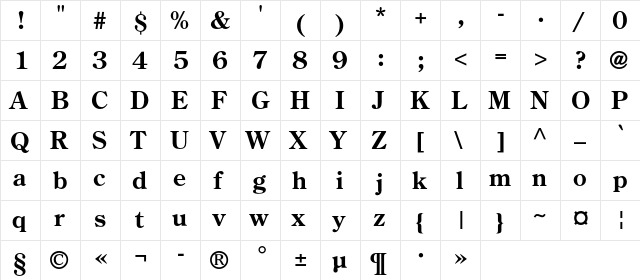
AGCenturionC Bold
Design Context for AGCenturionC Typeface
AGCenturionC is a composed and adaptable typeface that performs quietly and consistently across a wide range of design contexts. The heavy weight commands attention and anchors typographic hierarchies.